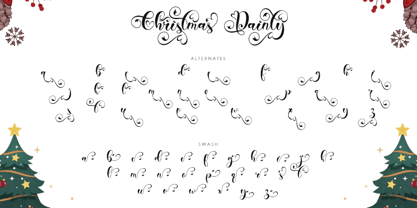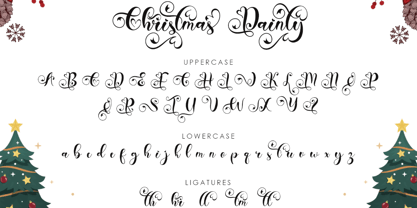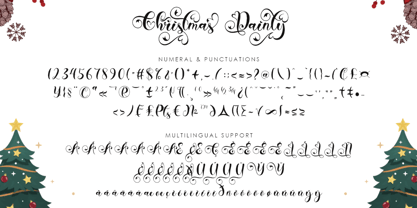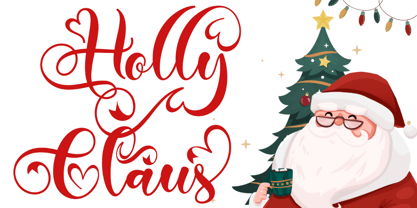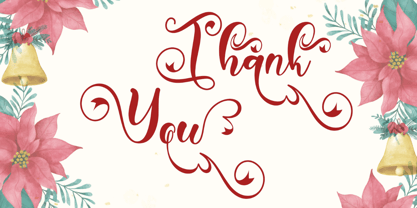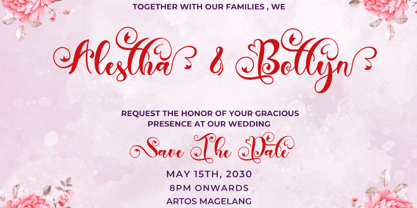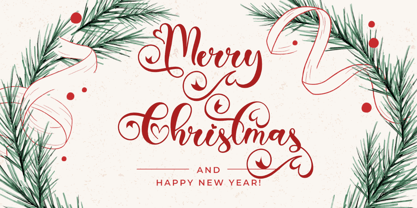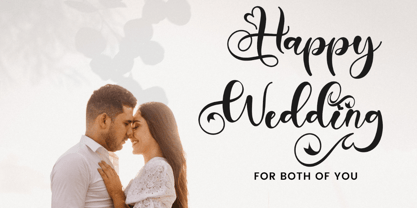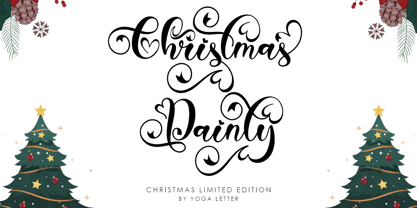
Christmas Dainty
by Yoga Letter
The Christmas Dainty Font Family was designed by Isroni Yoga Prasetya and published by Yoga Letter. Christmas Dainty contains 1 styles. More about this family
"Christmas Dainty" is a beautiful handwritten font. It comes with capital letters, lowercase letters, ligatures, swashes, alternates, numbers, punctuation, and multilingual support. It is perfect for Christmas, Valentine's, Fall, invitations, weddings, photography, business branding, logos, stickers, parties, and more.